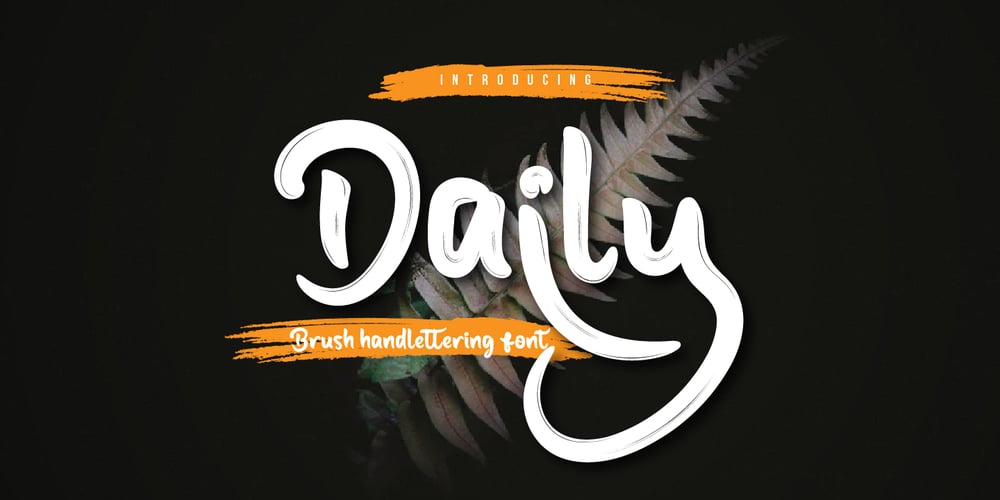
Daily Font Family was designed by Lita Faolina and published by Product Type. Daily contains 1 styles and family package options. Kick back and relax with Daily – Brush Handwritten Font, the font that brings a sense of ease and comfort to every project! With its laid-back strokes and casual charm, Daily is perfect for projects that want to create a warm and inviting atmosphere. Whether you’re designing cozy cafe menus, crafting friendly social media graphics, or adding a touch of comfort to your branding, Daily has got you covered. Get ready to take it easy and let your creativity flow with Daily – the font that feels like a warm hug!